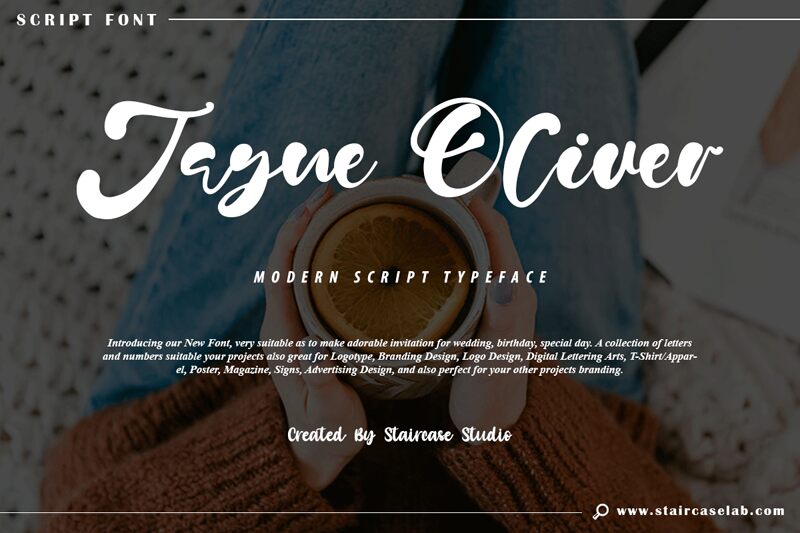
Jayne Oliver
Looking for a versatile and sophisticated handwriting font? Meet Jayne Oliver, the latest creation of Staircase Studio. With its elegant curves and natural flow, this font is suitable for a wide range of projects. Use it to add a personal touch to your wedding invitations or create eye-catching product packaging that stands out on the shelf. Its various weights make it perfect for everything from headlines to body text, while its handwritten style adds warmth and charm to any project. Whether you're designing a logo or crafting a social media post, Jayne Oliver is the perfect choice for anyone looking to add some personality to their typography.